If you start in the digital design world, using creative fonts is one of the simplest ways to make your pop projects. These sources are more than just letters – they are powerful tools that provide personality, emotions, and style to their designs. Whether you work with T-shirts, labels, invitations, or personalized social media maps, the right font can give life to your average appearance.
In this guide for beginners, we will discuss what constitutes a font as “creative,” where to locate free fonts and downloadable fonts, buy fonts online, and select the best fonts for your design project. We will also address some Silhouette America advice and tools to help you use fonts, even if you are just starting out.
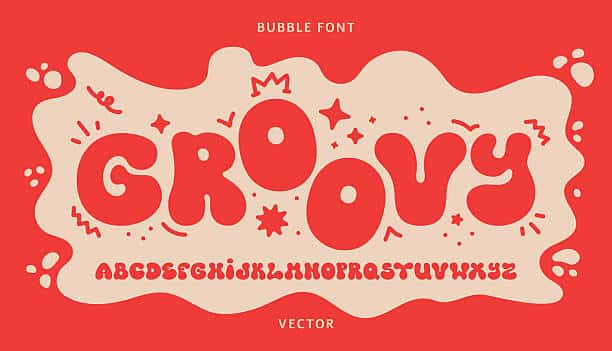
What are Creative Fonts?
Creative fonts stand out from the Serif and Sans-serif fonts. They are created to convey an atmosphere, humor, or visual effect. Some examples are script fonts such as curly for wedding invitations, bold fonts for posters, or handwritten fonts for children’s party decorations. They are fun, highly versatile, and ideal for digital design work.
Why Use Creative Fonts?
- They create visual interest. A carefully selected font can draw people’s attention instantly.
- They set the tone—Fonts express feelings – Serious, Fun, Formal, or Contemporary.
- They build marks. The fonts are part of your visual brand.
If you buy fonts online or use free fonts, maintaining a creative fonts library allows you to tell better stories through design.
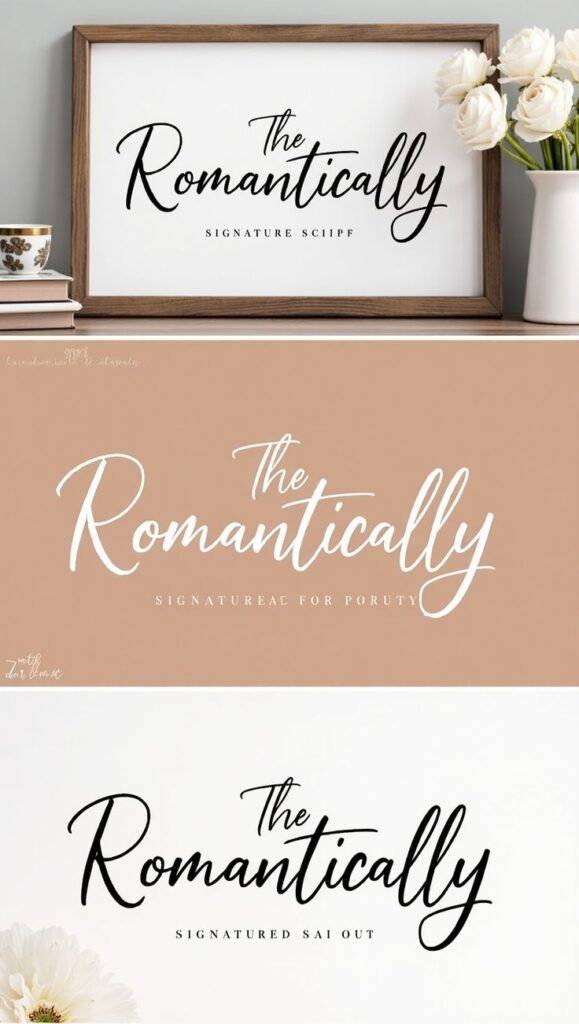
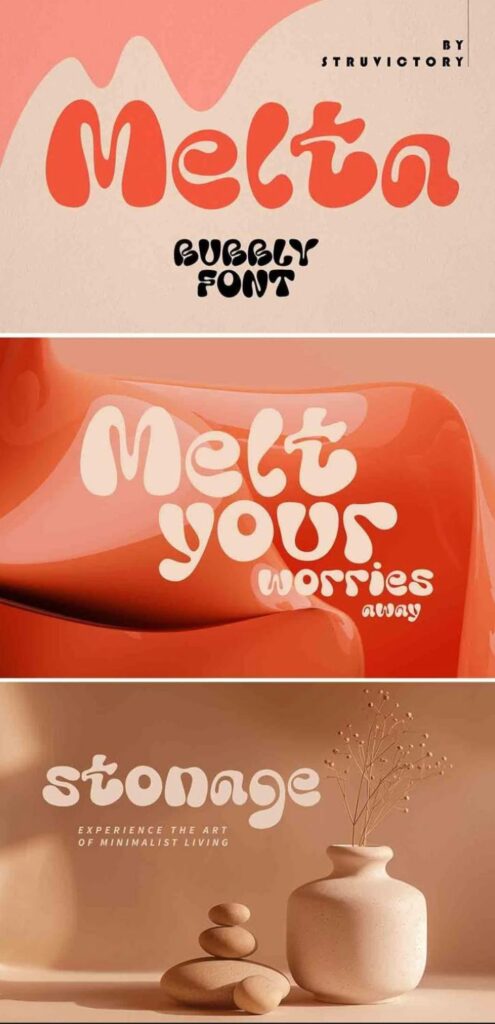
Various Types of Digital Fonts
Digital fonts are created directly for digital use on websites, design programs, and cutting machines. Here is a brief view of the typical types of digital fonts and how they are usually used:
| Font Type | Best Use Case | Design Vibe |
| Script Fonts | Wedding invitations, greeting cards | Elegant, romantic |
| Handwritten Fonts | Journals, party invites, decals | Fun, casual |
| Display Fonts | Posters, headlines, banners | Bold, attention-grabbing |
| Serif Fonts | Resumes, articles, formal branding | Professional, classic |
| Sans-Serif Fonts | Logos, websites, social media posts | Clean, modern |
Any creative font can be downloaded and applied, depending on the desired goal goal. If you are unsure where to start, combine a fun font with a basic font to add contrast and simplicity.
Where to Find Free and Downloadable Fonts
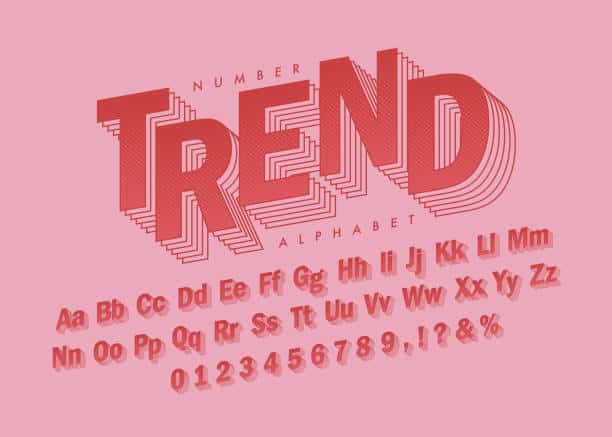
Best Websites to Buy Fonts
Silhouette is the most suitable site for buying fonts because it provides high-quality fonts and ready-to-use designs that perfectly cut cutting-edge machines for personalized, professional, and creative digital design projects.
The size of the fonts and lettering markets was $8.2 billion by 2024 and should be $12.5 billion by 2033, with a 5% CAGR of 2026-2033. When you use a cutting machine like Silhouette Cameo®, getting Silhouette Store fonts ensures compatibility, style, and performance. It is the best place to purchase fonts for vinyl, paper, and heat transfer projects.
How to Use Fonts In Silhouette Studio®
It is easy and quick to add your favorite downloadable fonts to Silhouette Studio® – even for beginners. These fonts can immediately illuminate your digital design projects, whether you create vinyl images, custom mugs, or custom T-shirts.
Adding them lets you manipulate your fonts – resize, rotate, weld, or curve as needed. Whether you create a home decoration or professional projects, your scriptures at Silhouette Studio® have full control over the final look of each project.